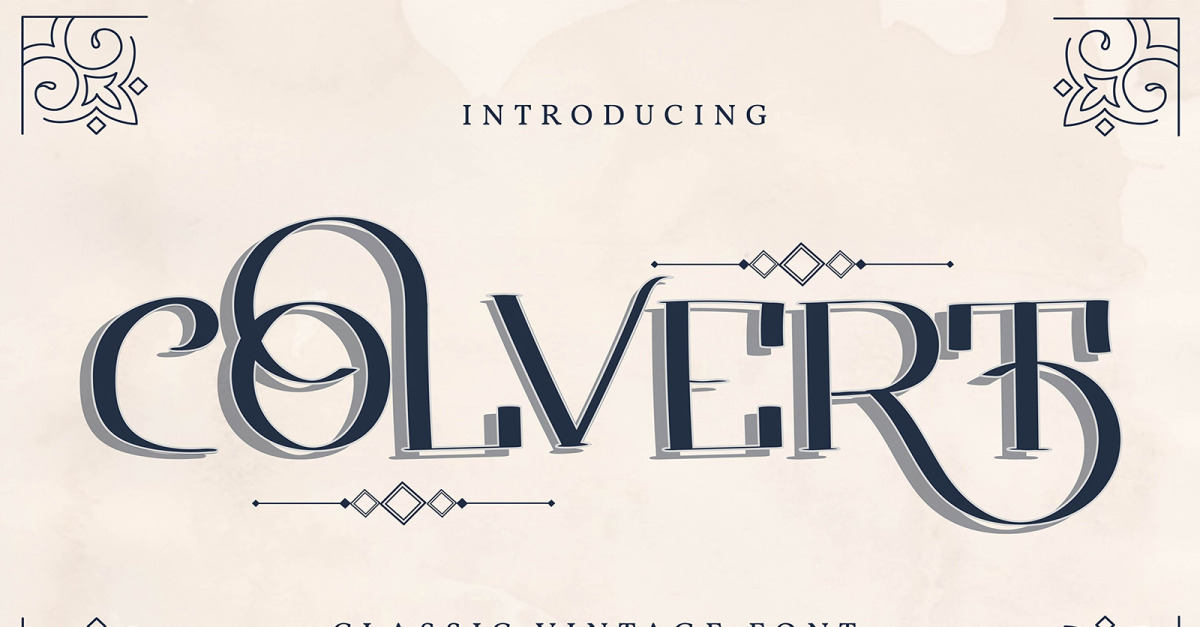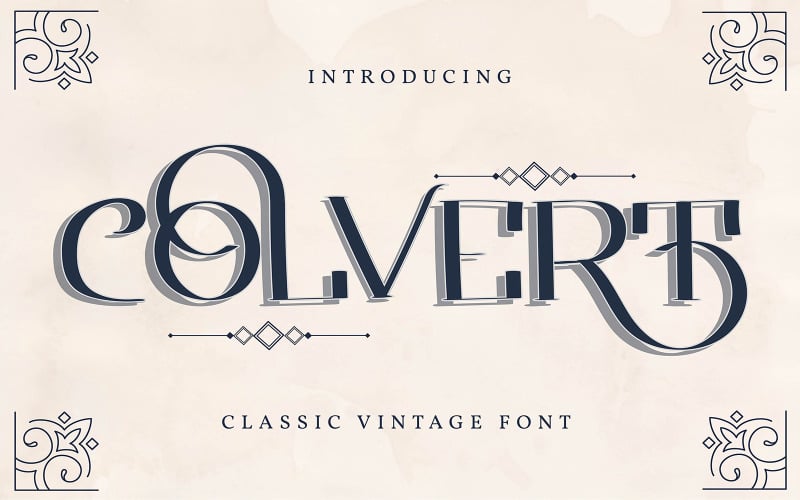
Colvert | Classic Vintage Font
**Colvert | Classic Vintage Font** with a calligraphy style, So beautiful on invitation like greeting cards, branding materials, business cards, quotes, posters, and more!